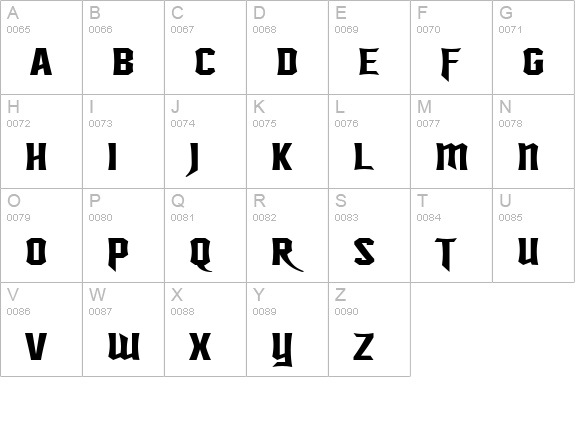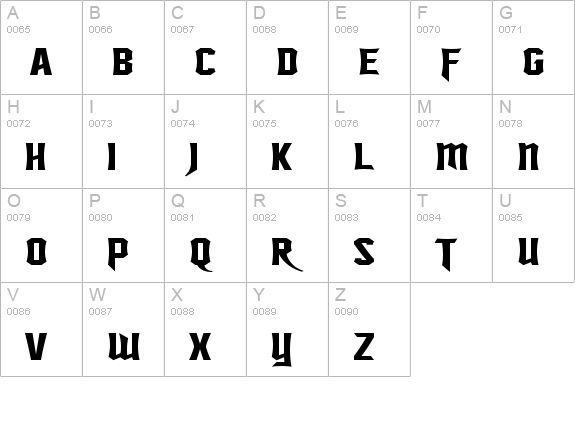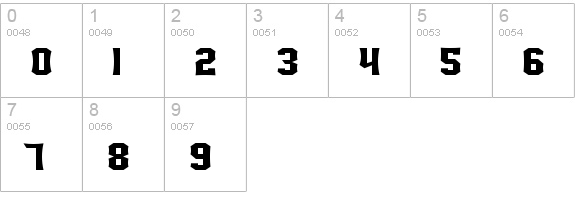
SF Ironsides Extended Font Details
SF Ironsides Extended is a distinctive, extended-width variant in the SF typeface family \xE2\x80\x94 well suited to design and typography projects.
Introducing SF Ironsides Extended, a striking and versatile font that combines the perfect blend of sleek modernity and timeless charm. With its bold letterforms and elongated proportions, this typeface commands attention and exudes a sense of strength and confidence. Designed with meticulous attention to detail, SF Ironsides Extended is a true masterpiece. Each character is carefully crafted to ensure a harmonious balance between elegance and legibility. The clean lines and sharp edges give this font a sense of precision, making it ideal for a wide range of design projects. Whether you're creating eye-catching headlines, designing captivating logos, or crafting impactful posters, SF Ironsides Extended provides a powerful and dynamic visual presence. Its bold strokes and extended proportions make a bold statement, demanding attention and leaving a lasting impression. What sets SF Ironsides Extended apart is its versatility. This font can effortlessly adapt to various design themes, from modern and futuristic to retro and vintage. Its timeless appeal ensures that it will remain relevant for years to come, making it an invaluable addition to any designer's toolkit. And the best part? SF Ironsides Extended is available for free! You can easily download it from FontsMarket.com, where this remarkable font awaits your creative endeavors. Don't miss out on the opportunity to enhance your designs with this exceptional typeface. So, whether you're a professional designer looking to elevate your projects or an aspiring creative seeking to make a statement, SF Ironsides Extended is the perfect choice. Download it today and let your imagination run wild with the endless possibilities this font has to offer.